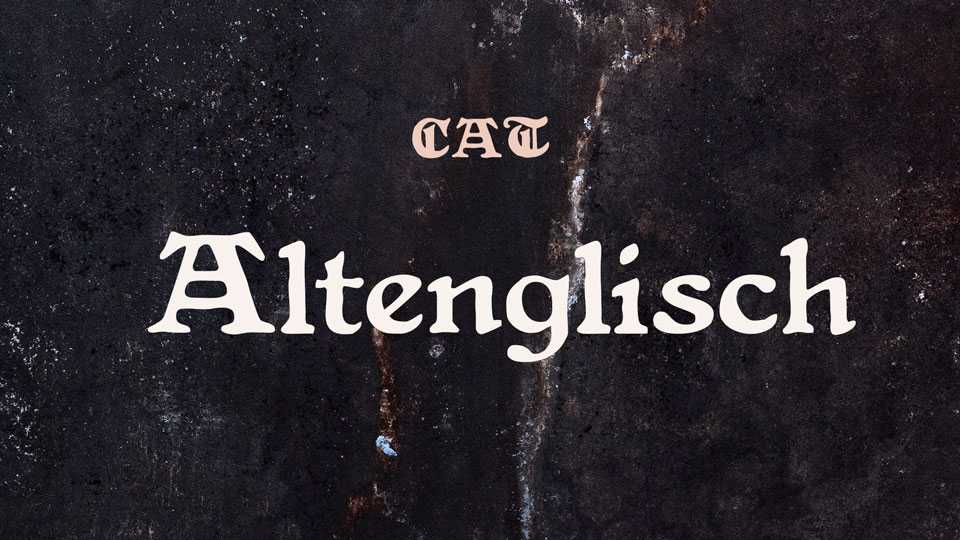
Download Altenglisch font, a surprisingly legible, slightly worn-out mix of majestic blackletter majuscules and roman minuscules. Altenglisch is perfect for designs of old settings, like books of fairy tales, old war books, or anything historical.